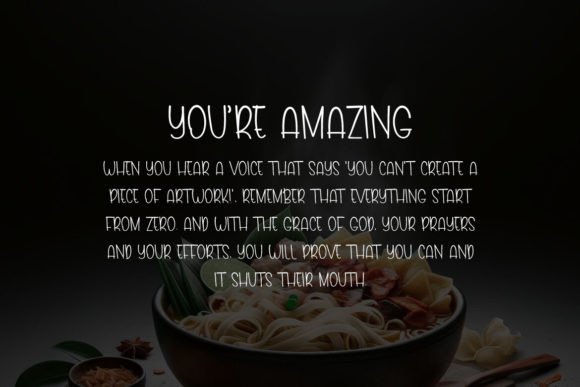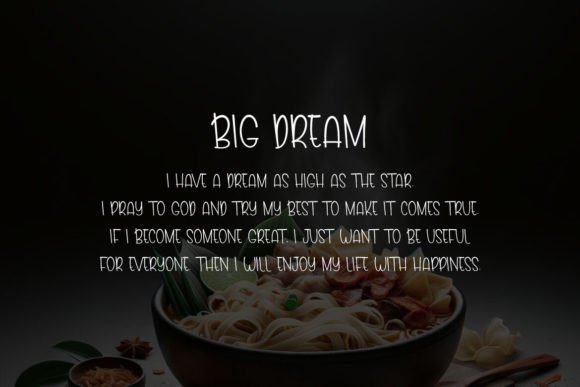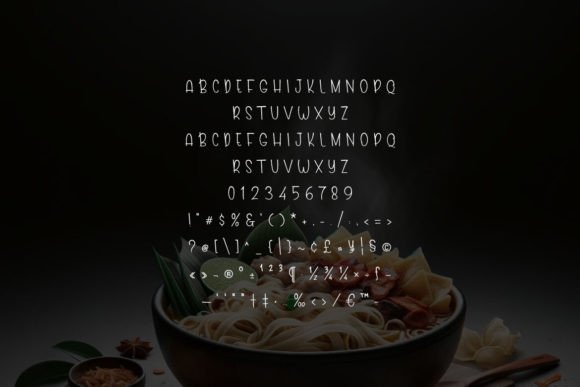
Give Your Designs the Perfect Touch of Elegance
Have you ever been working on a design project and felt like something was missing – a touch of sophistication that would elevate your text and make it truly stand out? You’re not alone. Many designers struggle to find the perfect font that adds a sense of refinement and polish to their work.
That’s where the Bakso Achi Font comes in – a meticulously crafted display font designed to add a touch of elegance to your design projects. With its clean lines and sleek profile, Bakso Achi Font is perfect for branding, editorial design, logos, invitations, and more. Its minimalist aesthetic complements contemporary design trends, ensuring your text stands out with a refined and polished look.
Bakso Achi Font Key Features
- Font Style: Bakso Achi Font is a unique and modern sans-serif font, designed to resemble Indonesian street food, specifically bakso (meatballs).
- Character Count: Bakso Achi Font has a total of 250 characters, including uppercase and lowercase letters, numbers, and special characters.
- Unique Characteristics: Bakso Achi Font features a unique blend of modern and traditional Indonesian design elements, making it a great choice for projects that require a touch of cultural flair.
Bakso Achi Font Review
Overall, I think Bakso Achi Font has some great qualities that make it a solid choice for designers, but it also has some limitations that might hold it back. Let’s dive in and explore what works well and what could be improved.
- Unique and playful design: Bakso Achi Font has a fun and quirky personality that can add a lot of character to a design.
- Highly legible: The font is easy to read, even at small sizes, making it a great choice for body text or headlines.
- Good for informal content: Bakso Achi Font is perfect for social media posts, blog articles, or other informal content where you want to add some personality to your text.
- Limited versatility: While Bakso Achi Font is great for informal content, it might not be the best choice for more formal or professional designs.
- No language support: Unfortunately, Bakso Achi Font only supports a limited range of languages, which might limit its usability for designers who need to work with multiple languages.
Bakso Achi Font is a fun and playful font that can add a lot of character to a design. While it has some limitations, it’s a great choice for designers who need a font that’s easy to read and fun to use. With some careful consideration of its limitations, Bakso Achi Font can be a valuable addition to any designer’s toolkit.
Bakso Achi Font is commonly used for creative projects, such as graphic design, typography, and branding. It’s also great for adding a touch of personality to presentations, social media posts, and marketing materials.